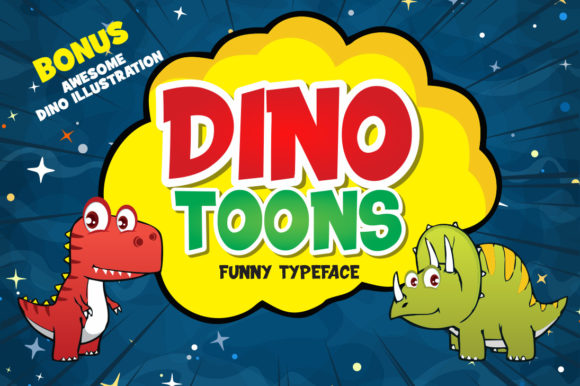
Journey into the Realm of Whimsy and Delight with Dinotoons Font
Prepare to be captivated by the Dinotoons Font, an extraordinary display font that will unleash your creativity and ignite your imagination. This one-of-a-kind font is meticulously crafted to add a touch of charm and playfulness to your designs, transporting you to a realm where creativity knows no bounds.
Meet Dinotoons, an Enchanting Display Font
Dinotoons is more than just a font; it's an artistic masterpiece that breathes life into your designs. With its whimsical curves and playful strokes, this font embodies the essence of fun and cheerfulness. Step into a world where dinosaurs dance, unicorns fly, and rainbows paint the sky. Let Dinotoons be your guide on this magical adventure.
Express Your Quirky Side with Dinotoons
Unleash your inner child and let your creativity run wild with Dinotoons. This remarkable font is perfect for adding a touch of quirkiness to your projects, whether you're designing logos, invitations, posters, or social media graphics. Its unique style is sure to capture attention and leave a lasting impression.
Capture Hearts with Dinotoons' Illustrations
Dinotoons comes with a treasure trove of four delightful illustrations, each one a masterpiece of digital art. These charming illustrations perfectly complement the font, adding an extra layer of whimsy and enchantment to your designs. Whether you're creating a children's book, a whimsical greeting card, or a playful poster, these illustrations will elevate your work to new heights of creativity.
Dinotoons: Your Creative Playground
With Dinotoons, the possibilities are endless. Let your imagination soar as you explore the countless ways to use this versatile font. Create eye-catching quotes that inspire and uplift, design logos that spark joy and recognition, or craft badges and labels that exude personality. Unleash your inner designer and let Dinotoons be your muse.